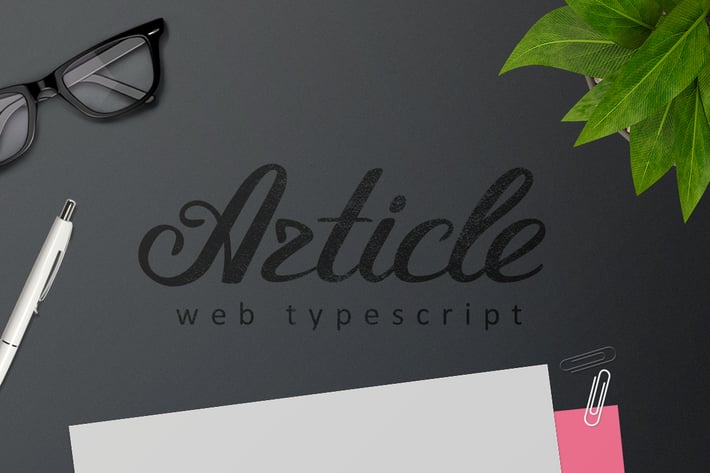
Article Typeface Script
Article Typeface is a beautiful handmade script give the accurate looks. Alternate character contain with opentype features.
Great for Invitations & greeting cards, Apparel Brands, Logos, Printed quotes, product packaging, text headers, book cover.